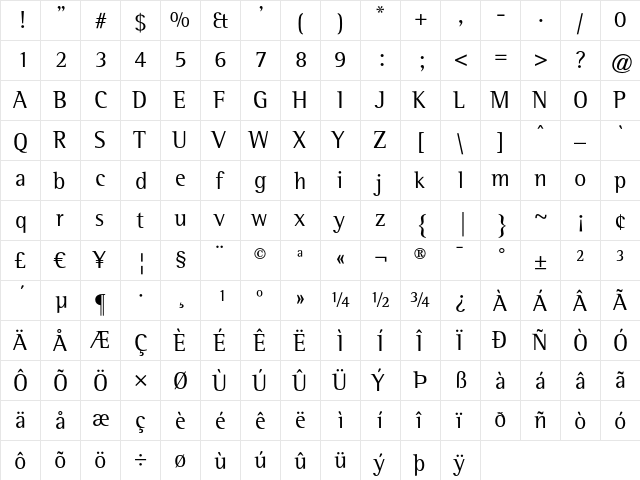
AgfaRotisSemiSerif Regular Font Preview
AgfaRotisSemiSerif Regular
Design Context for AgfaRotisSemiSerif Typeface
AgfaRotisSemiSerif carries the refined structure of traditional serif typography, with bracketed terminals and considered proportions that communicate credibility and craft.
Pro Tip: Use AgfaRotisSemiSerif for editorial body copy and considered headline work. Pair with a neutral sans for UI elements or captions to create a classic hierarchy.